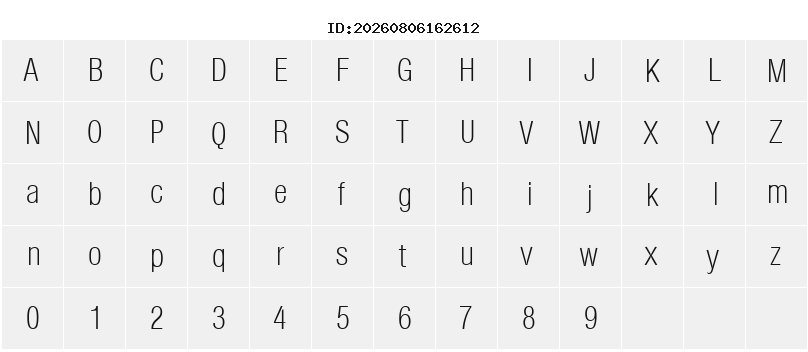
• Font Name: Olympia-XlightCond
About Olympia-XlightCond.ttf
Olympia-XlightCond.ttf is a modern, elegant sans-serif font designed for ultimate readability and visual harmony. Perfect for branding, headlines, web design, and print materials.